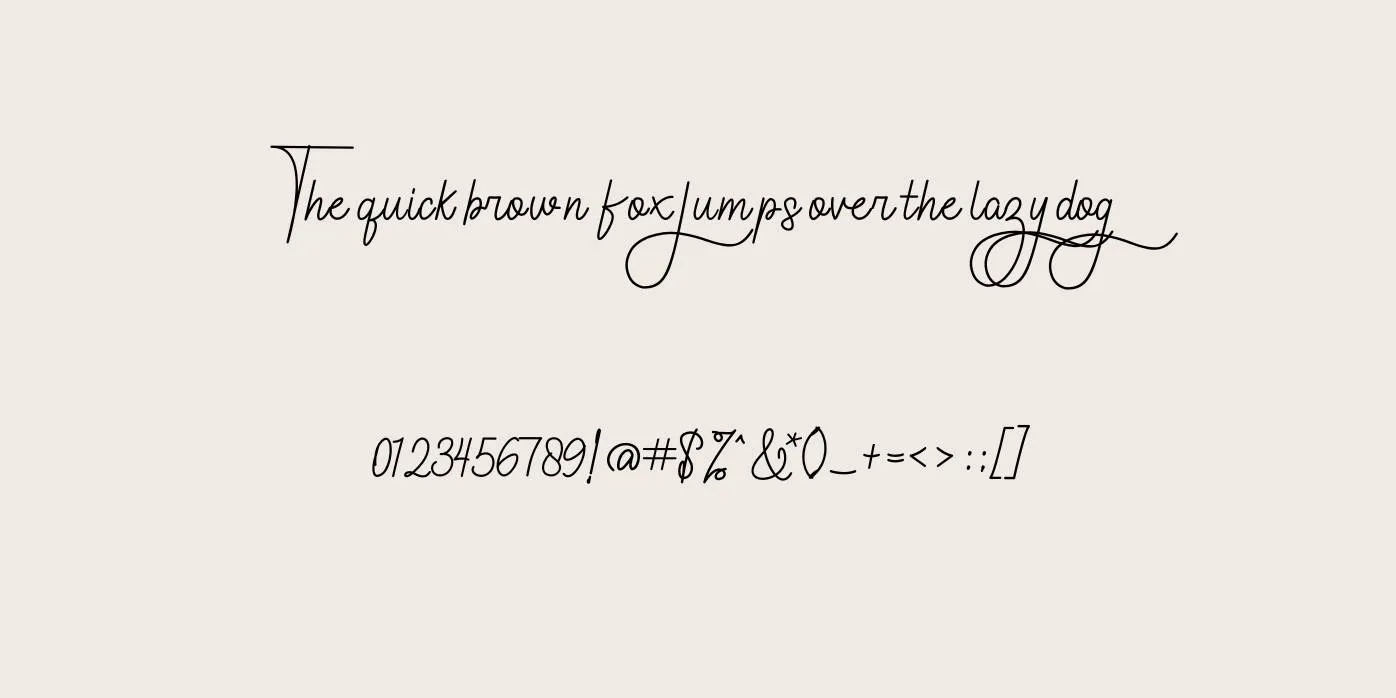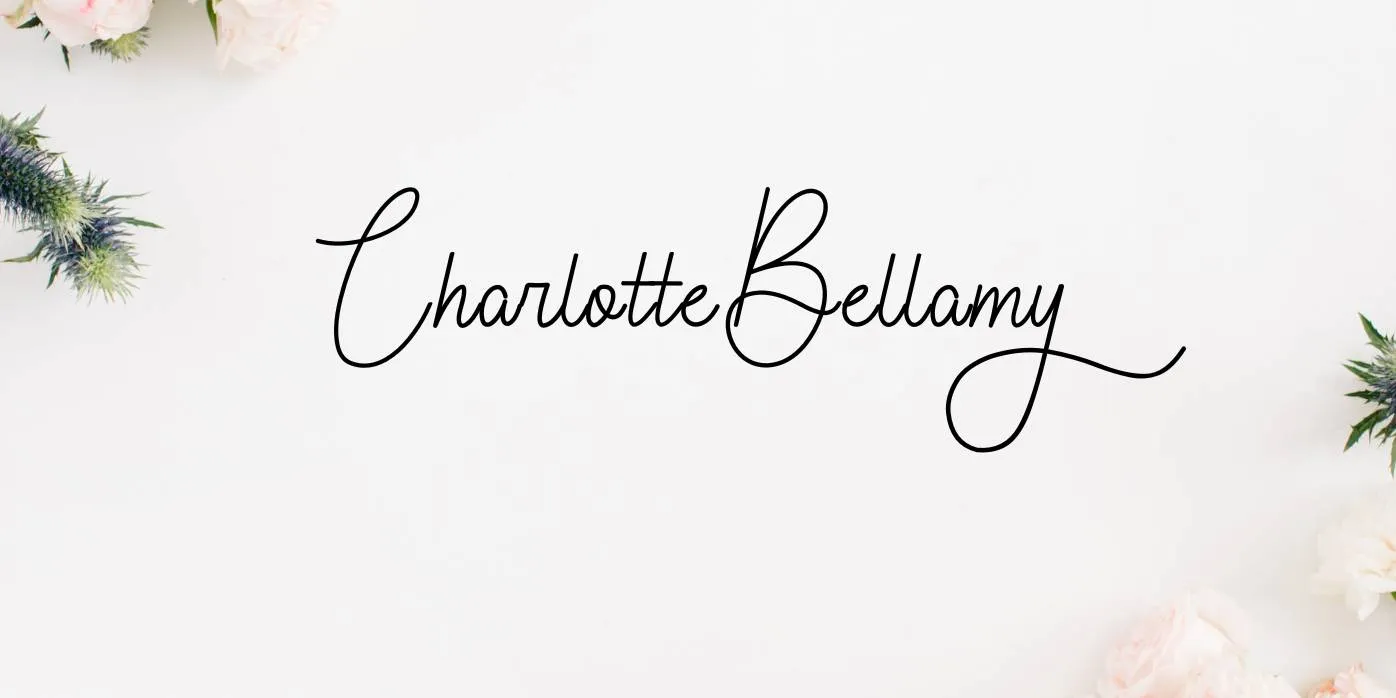
Charlotte Bellamy Font
You are going to read about the famous handwritten type of font. Charlotte Bellamy Font is a handwritten type of font that is designed by a famous foundry Gilar Studio. There are 136 unique and amazing glyphs for this typeface. This texture is available on this website free of cost.